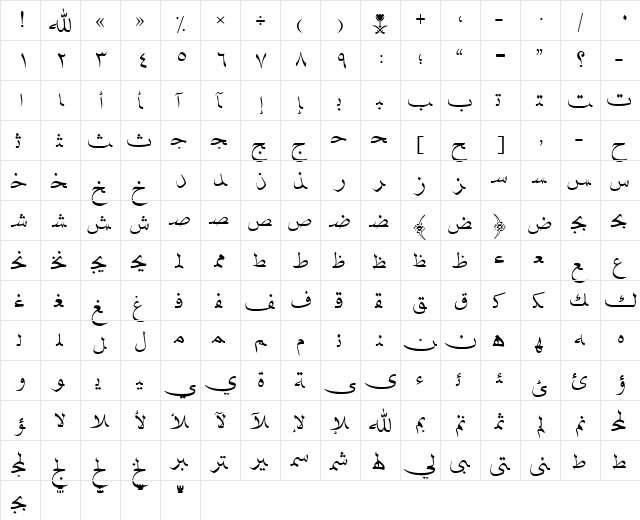
AYM Nask S_U normal. Normal Font Preview
AYM Nask S_U normal. Normal
Design Context for AYM Nask S_U normal. Typeface
AYM Nask S_U normal. offers clean, dependable letterforms without strong stylistic allegiance, making it a practical choice for designers who need flexibility.
Pro Tip: Use AYM Nask S_U normal. in both headline and body roles to test its range before committing to a single application.